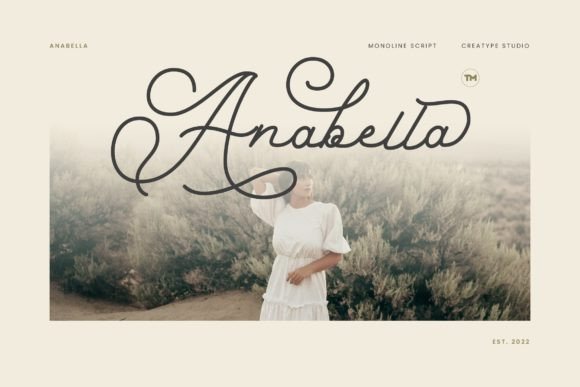
Discover the Timeless Elegance of Anabella Font
Have you ever been brainstorming a new design project, and the perfect font just slips your mind? That’s what happened to me when I was creating a wedding invitation design for a close friend. I wanted something that exuded sophistication and romance, but nothing seemed to fit the bill – until I stumbled upon the stunning Anabella Font. This beautiful monoline script font is a game-changer for designers looking to add a touch of elegance to their work.
The Anabella Font is more than just a pretty face; it’s a versatile tool that can be used for a wide range of applications, from logos and branding to social media posts and wedding designs. Its classy, modern look makes it a valuable asset for any designer looking to elevate their work and stand out in a crowded industry.
Anabella Font Key Features
- Font Family: Anabella is a script font family designed for elegant and sophisticated typography.
- Character Count: The Anabella font family includes a large character set, covering Latin, Cyrillic, and Greek alphabets, with over 400 glyphs.
- Unique Characteristics: Anabella features connected letterforms, swashes, and ligatures, making it ideal for wedding invitations, greeting cards, and other creative projects.
Anabella Font Review
I recently had the chance to work with the Anabella font, and I must say it’s a unique and beautiful script font. Here are my honest thoughts:
- The Anabella font is perfect for creating elegant and sophisticated designs. Its classic and timeless feel makes it suitable for various projects, from wedding invitations to luxury brand logos.
- The font’s flowing curves and connections between letters make it a great choice for creating a sense of movement and fluidity in your designs.
- The font is highly customizable, allowing you to adjust the spacing, size, and style to fit your specific design needs.
- The Anabella font may not be the best choice for body text or large blocks of text due to its flowing connections and lack of contrast between letters.
- The font may require more manual spacing adjustments to achieve the perfect look, which can be time-consuming and labor-intensive.
The Anabella font is a beautiful and elegant script font that shines in various design applications. While it may have some limitations, its unique style and customization options make it a great addition to any designer’s toolkit. With some careful planning and attention to detail, you can create stunning designs that showcase the Anabella font’s full potential.
Anabella Font Practical Application Guide
Getting Started with Anabella Font
Tips for Getting the Most Out of Anabella Font
To get the most out of Anabella font, use it for:
- Photography captions and quotes.
Remember to pair Anabella font with a clean and simple background to showcase its elegance.
Anabella font is commonly used for:
- Formal events and occasions.
- Use Anabella Font as the main text for the invitation, adding a touch of elegance and sophistication.
- Combine Anabella Font with hand-drawn illustrations or watercolor elements to create a unique and dreamy look.
- Pair Anabella Font with a soft pastel color palette to create a romantic and ethereal atmosphere.
- Use gold or silver foil accents to add a touch of luxury and glamour.
- Use Anabella Font as the main headline, highlighting the destination or attraction.
- Combine Anabella Font with distressed textures or vintage-style maps to create a retro vibe.
- Pair Anabella Font with a warm, earthy color palette to evoke a sense of adventure and exploration.
Exploring Creative Projects with Anabella Font
Anabella Font is perfect for creating a whimsical wedding invitation that stands out from the crowd.
Project 2: Vintage-Inspired Travel Poster
Anabella Font can add a touch of nostalgia and charm to a vintage-inspired travel poster.
Project 3: Dreamy Children’s Book Cover
Anabella Font is perfect for creating a dreamy and enchanting children’s book cover that will capture young readers’ imaginations.